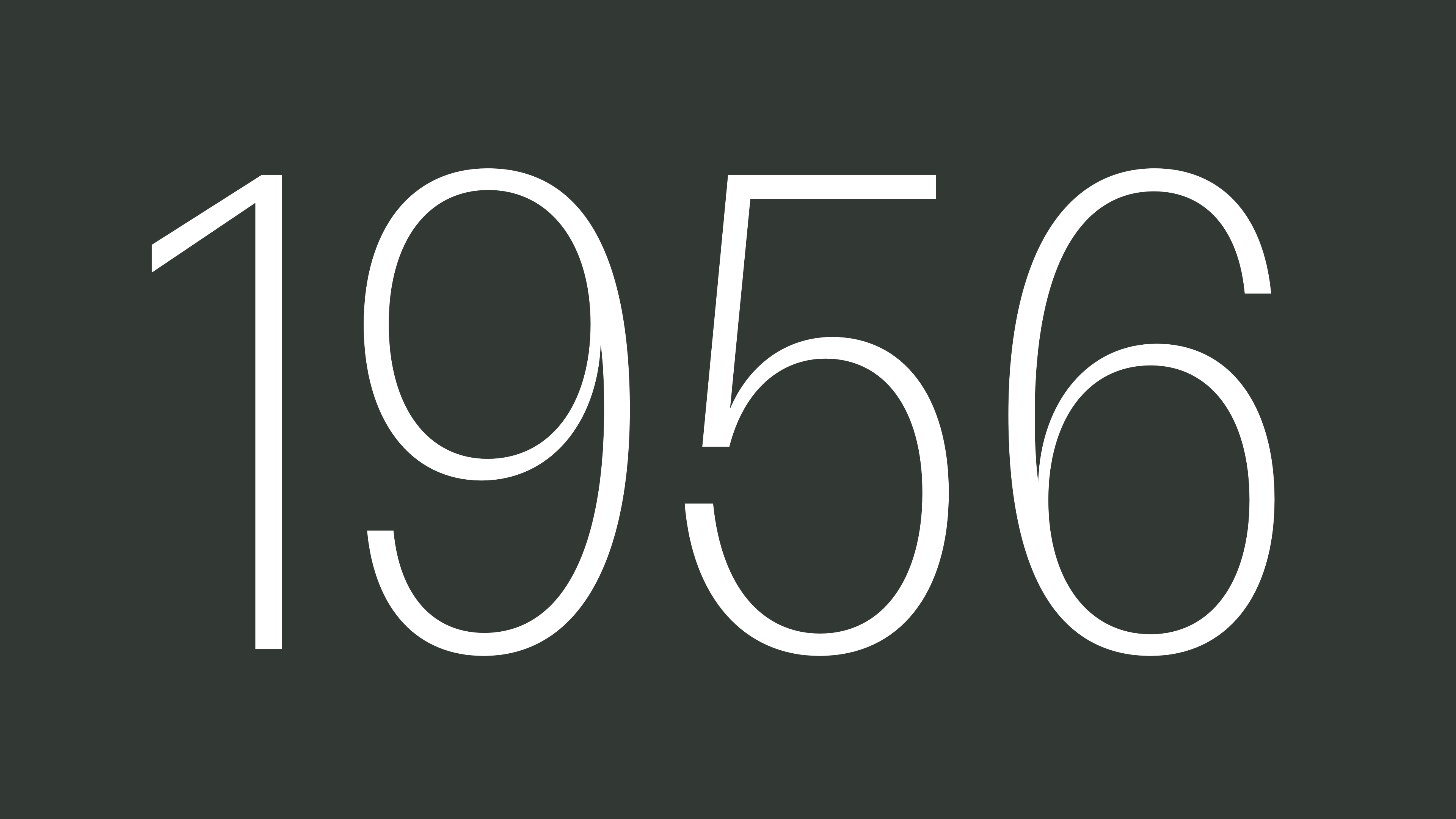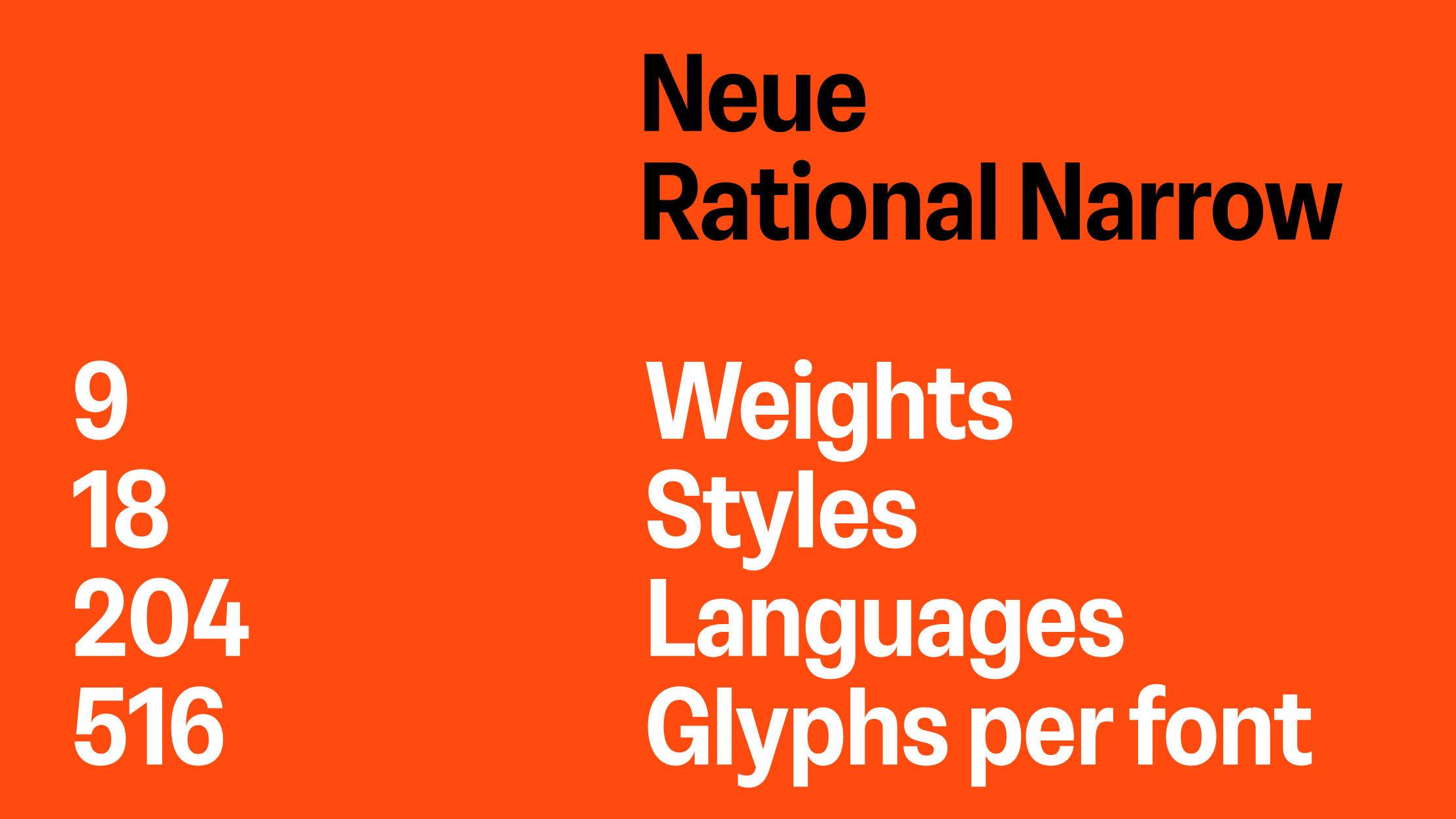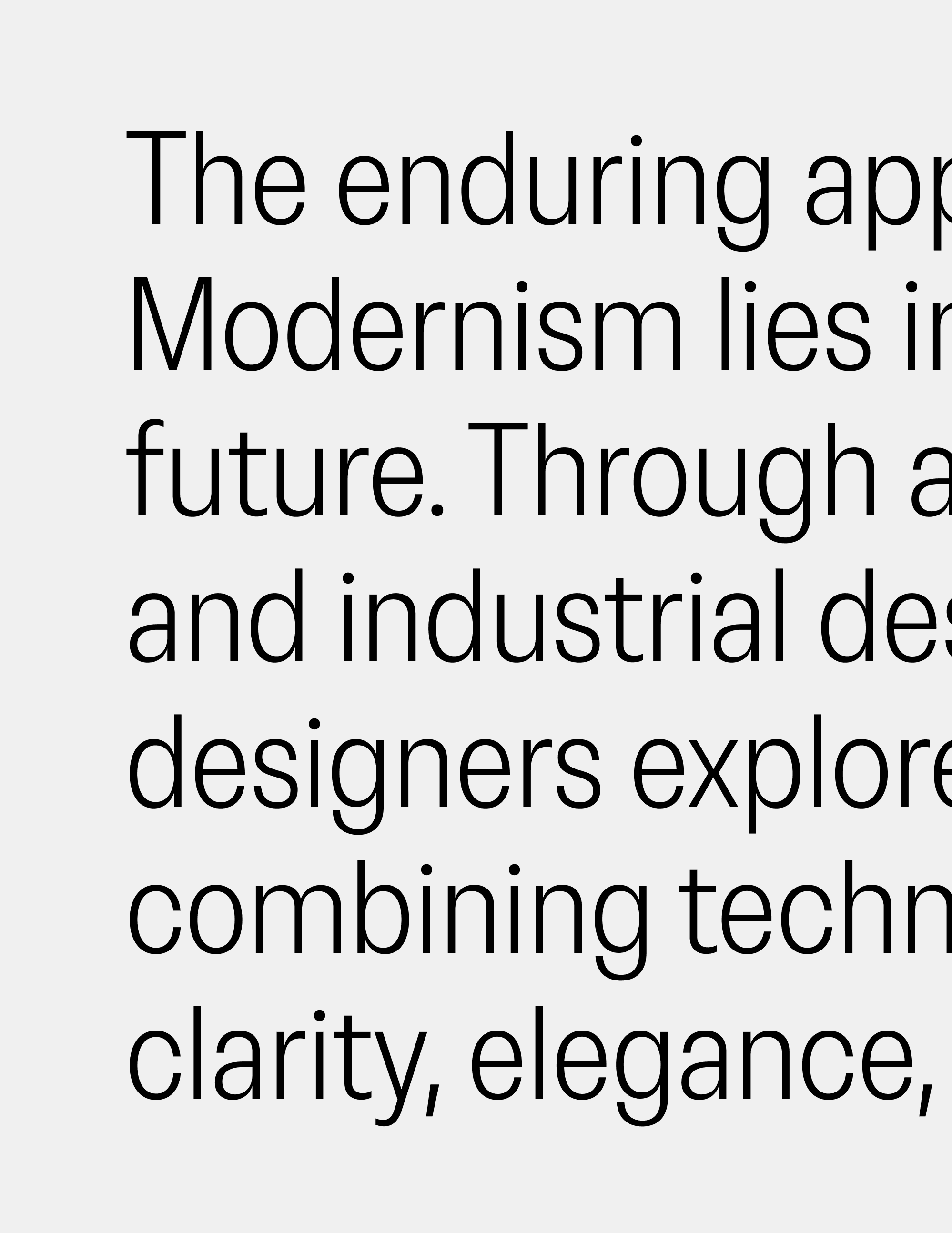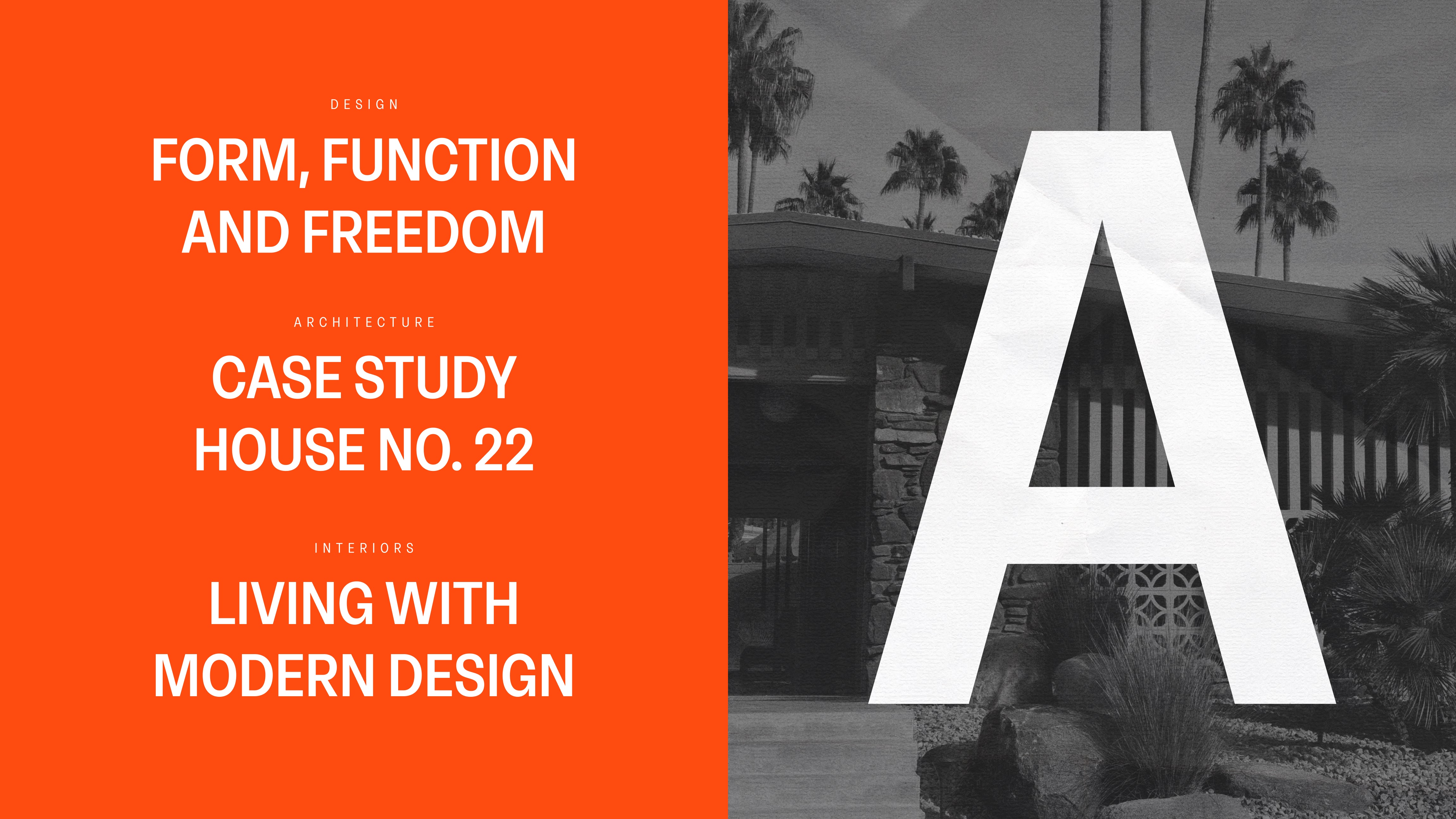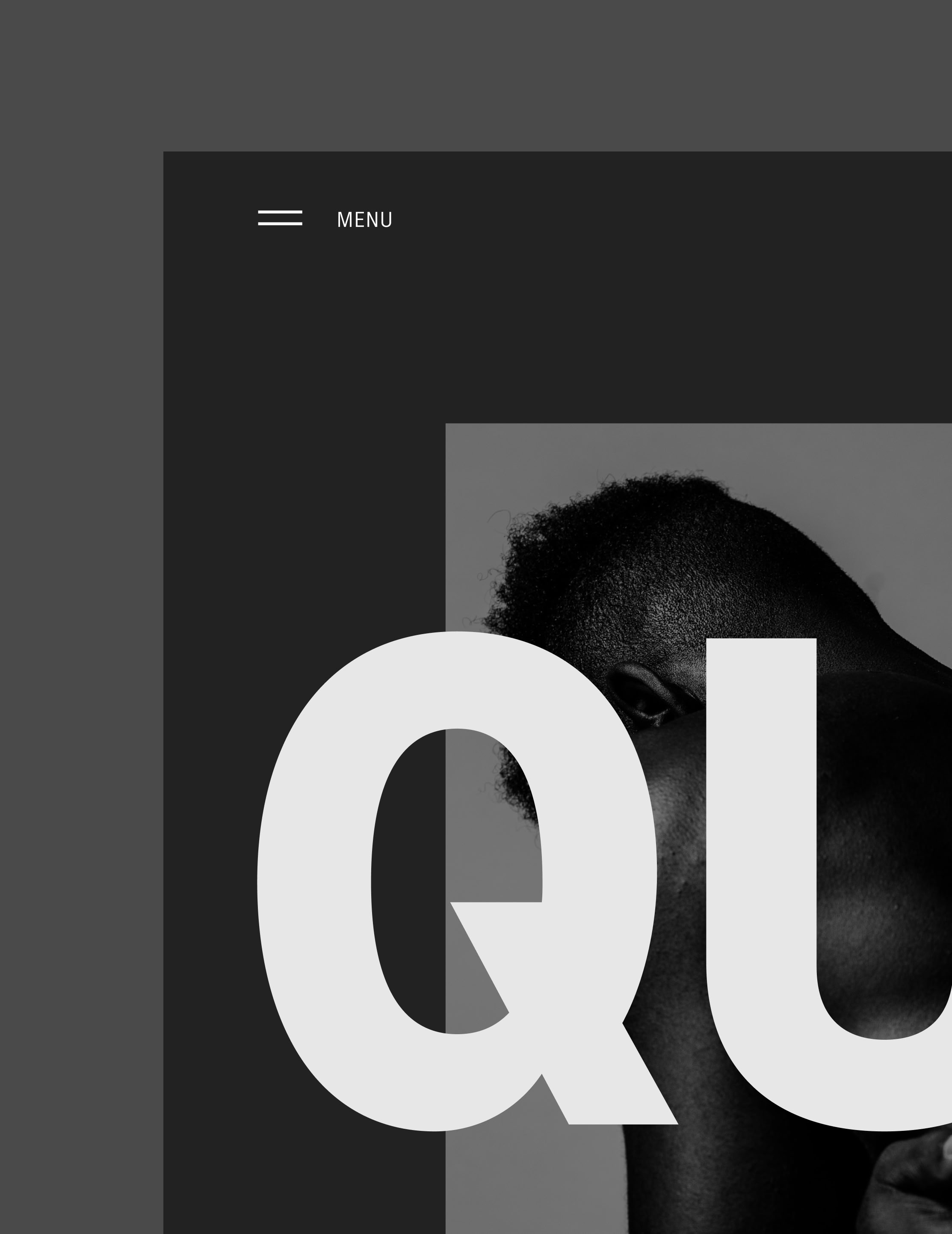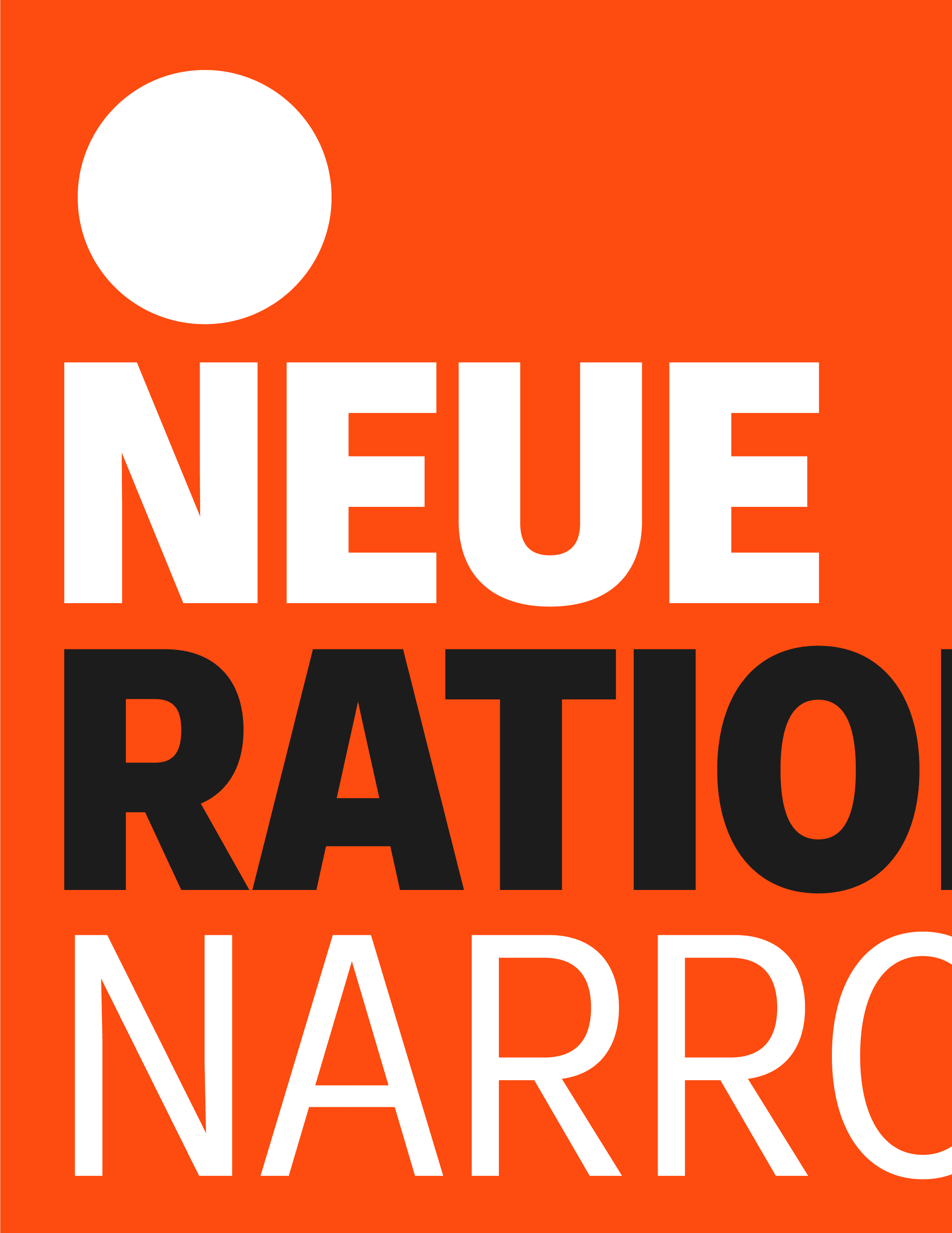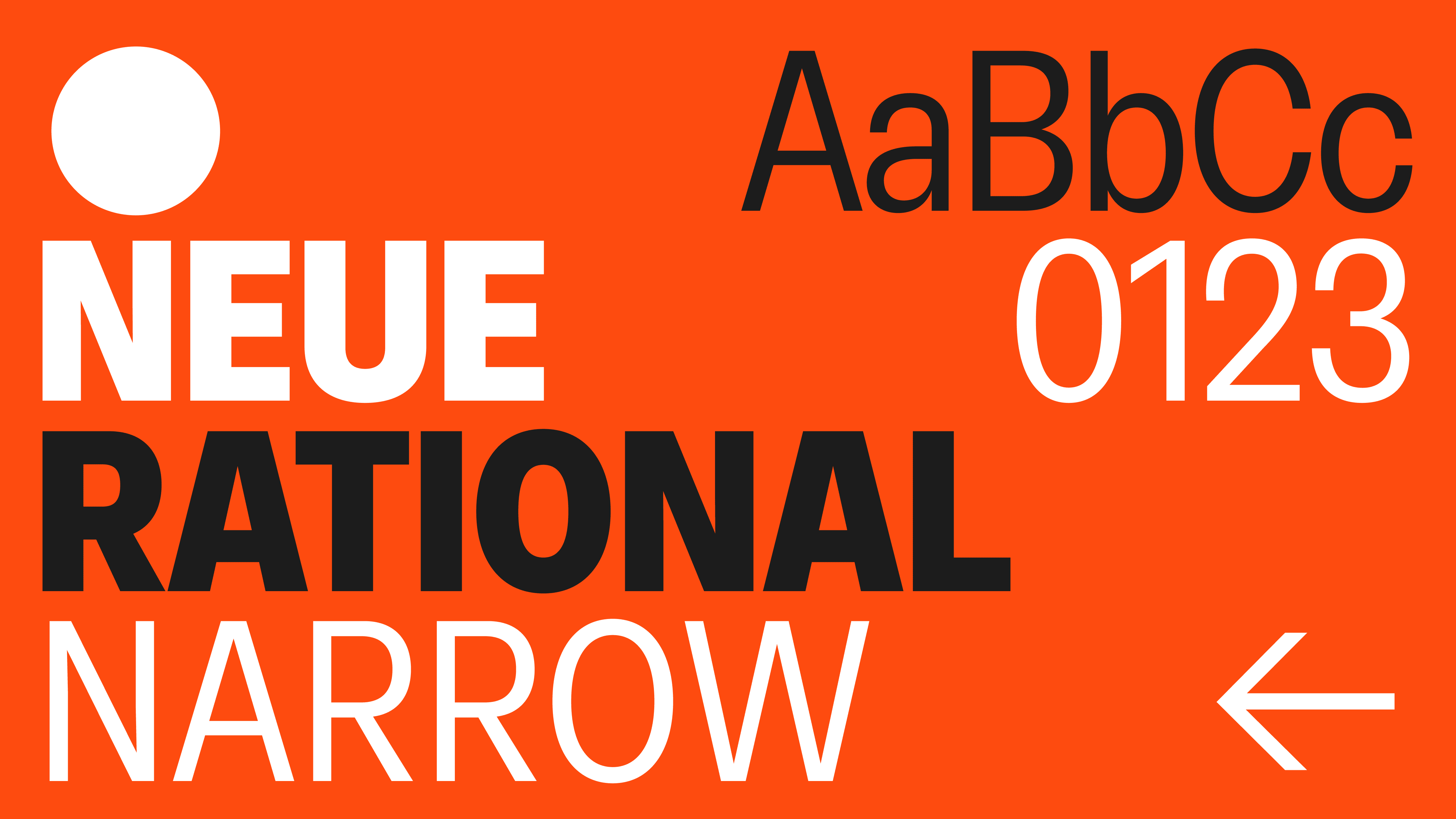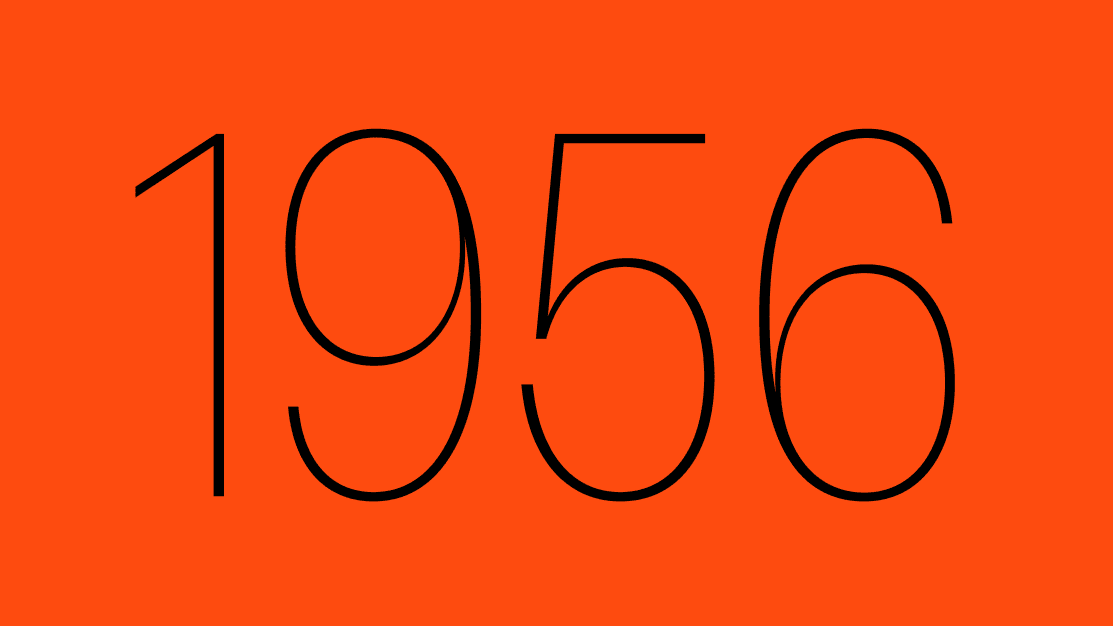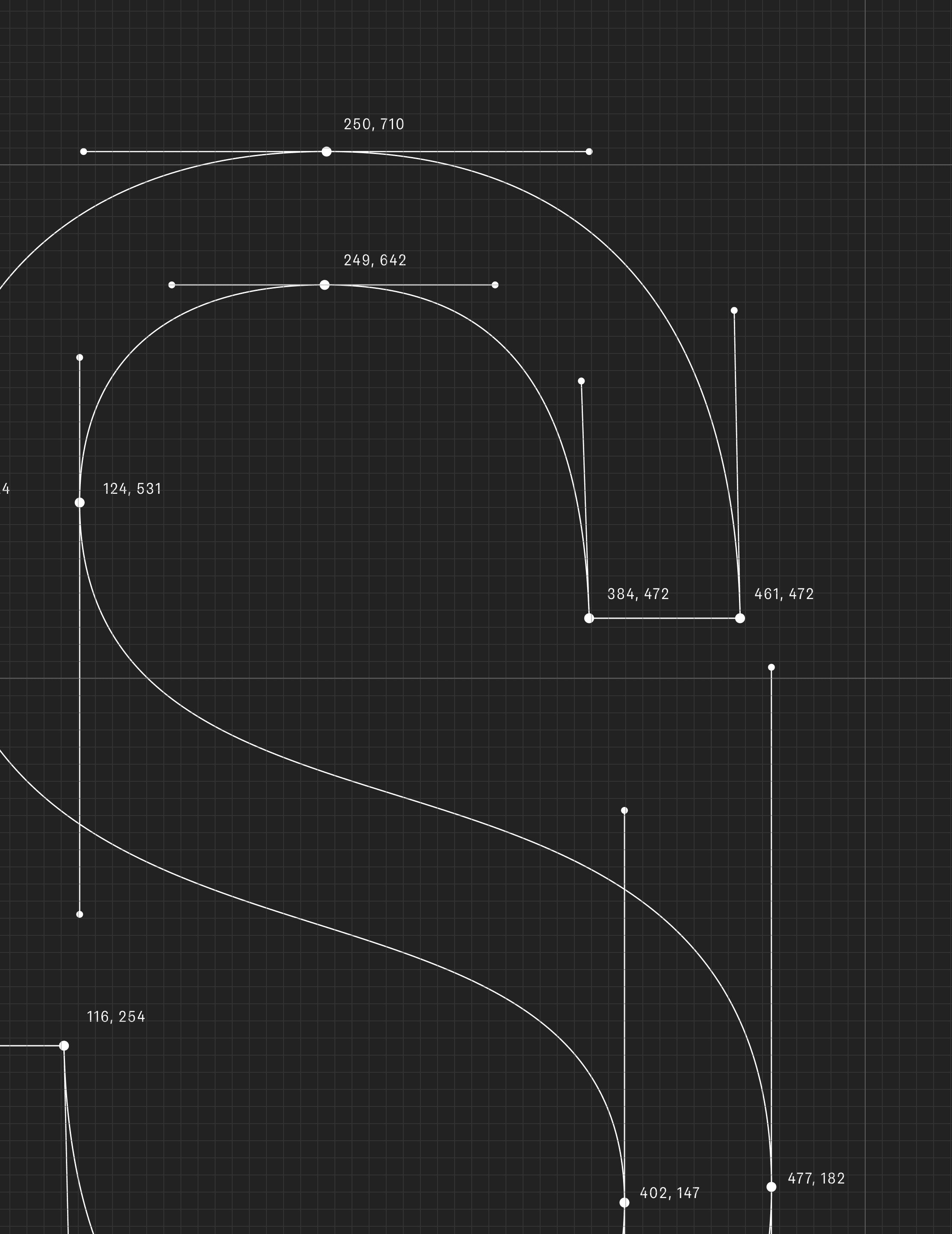
Studio René Bieder
Neue Rational Condensed is a contemporary neo-grotesk with narrow proportions, designed for clarity, efficiency, and space-conscious typography. The broader Neue Rational Collection also includes Normal, Condensed, Mono, and Mix subfamilies.